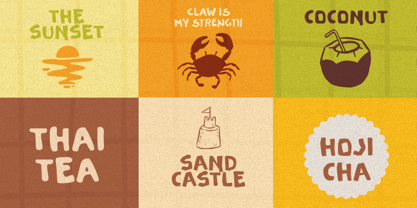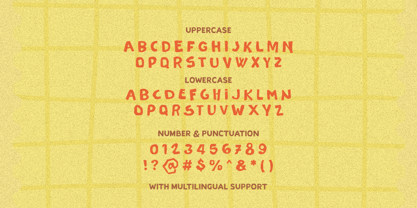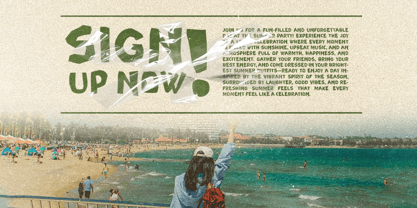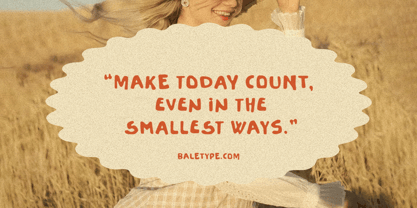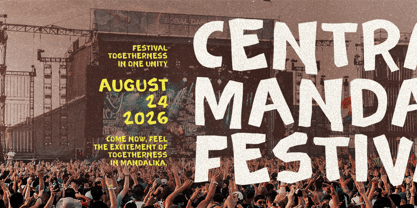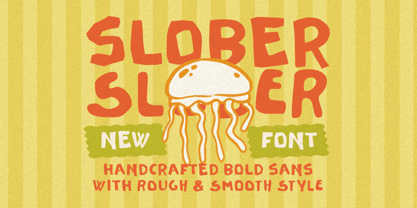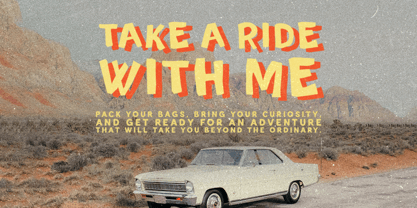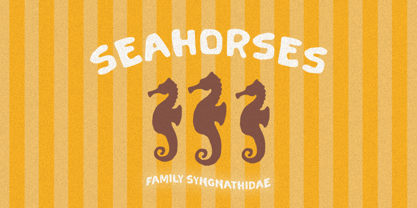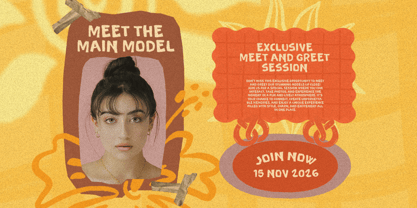
Slober
by Bale Type
The Slober Font Family was designed by Ridho Azumarta and published by Bale Type. Slober contains 2 styles and family package options. More about this family
Slober is a bold handcrafted all caps sans with rough and smooth style. With different uppercase and lowercase shape, you can combine both in a word to make your project looks naturally hand-lettered. You can choose between two style, rough and smooth, that suitable for your project. You can use this font for logo, branding, quotes, poster, or any design that need strong yet human made vibes. This font also support multi language.